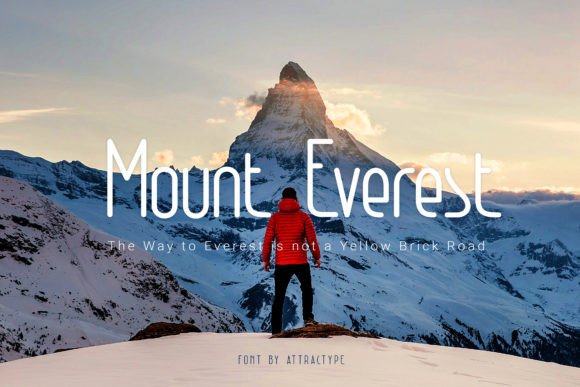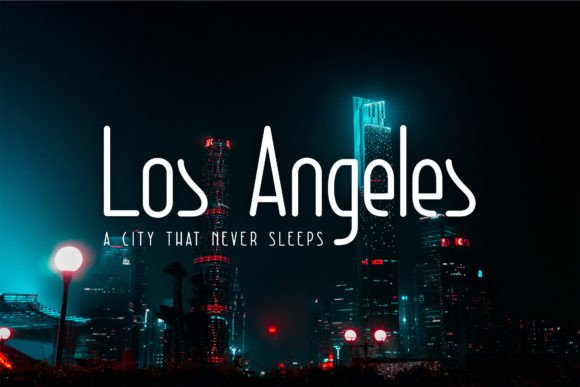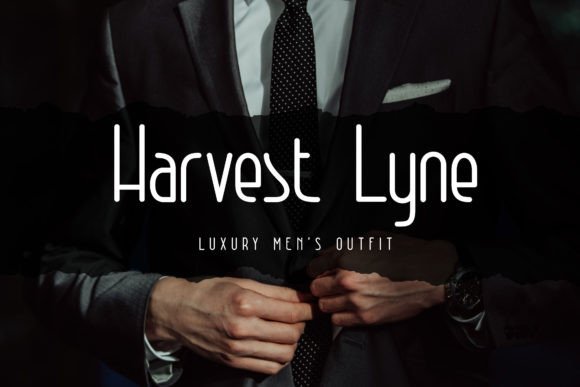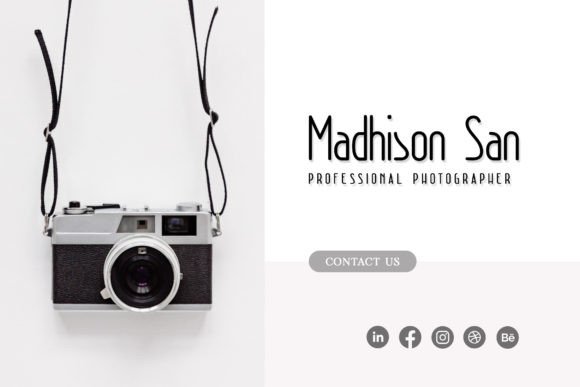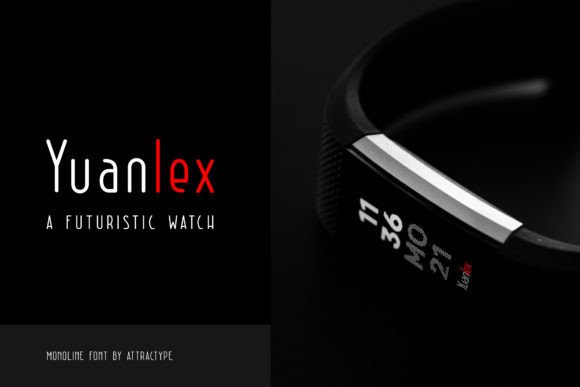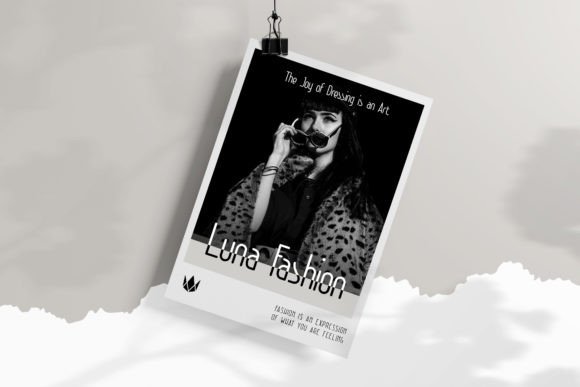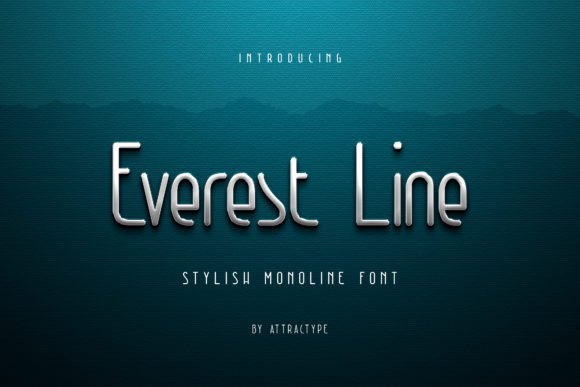
Introducing Everest Line Font: Elevate Your Designs with Elegance and Versatility
Are you on the lookout for a font that can instantly elevate your designs and make them stand out? Look no further than the Everest Line Font, a stylish and elegant monoline font that is sure to capture your heart. With its incredibly versatile style, this font is perfect for designers and crafters who want to create spectacular designs that leave a lasting impression.
What is Everest Line Font?
Everest Line Font is a monoline font that features a sleek and sophisticated design. Its elegant lines and curves make it perfect for a wide range of design projects, from logos and branding to invitations and packaging. The font’s monoline style gives it a modern and streamlined look that is sure to appeal to designers who value simplicity and elegance.
Key Features of Everest Line Font
So, what makes Everest Line Font so special? Here are some of its key features:
- Versatile style: Everest Line Font is incredibly versatile, making it perfect for a wide range of design projects.
- Elegant design: The font’s monoline style gives it a sleek and sophisticated look that is sure to impress.
- Easy to read: Despite its elegant design, Everest Line Font is easy to read, making it perfect for body text and headlines.
- High-quality: The font is designed with high-quality and precision, ensuring that it looks great in any design project.
Uses of Everest Line Font
Everest Line Font is perfect for a wide range of design projects, including:
- Logos and branding: The font’s elegant design makes it perfect for logos and branding projects.
- Invitations and events: Everest Line Font is perfect for invitations, weddings, and other events.
- Packaging: The font’s modern and streamlined look makes it perfect for packaging design.
- Social media graphics: Everest Line Font is perfect for social media graphics, including Facebook posts, Instagram stories, and more.
Tips for Using Everest Line Font
Here are some tips for using Everest Line Font in your design projects:
- Pair it with other fonts: Everest Line Font pairs well with other fonts, so don’t be afraid to experiment with different combinations.
- Use it for headlines and body text: The font’s easy-to-read design makes it perfect for both headlines and body text.
- Experiment with colors: Everest Line Font looks great in a variety of colors, so don’t be afraid to experiment with different color schemes.
Why Choose Everest Line Font?
So, why should you choose Everest Line Font for your design projects? Here are just a few reasons:
- Elegant design: The font’s elegant design makes it perfect for designers who value sophistication and style.
- Versatility: Everest Line Font is incredibly versatile, making it perfect for a wide range of design projects.
- High-quality: The font is designed with high-quality and precision, ensuring that it looks great in any design project.